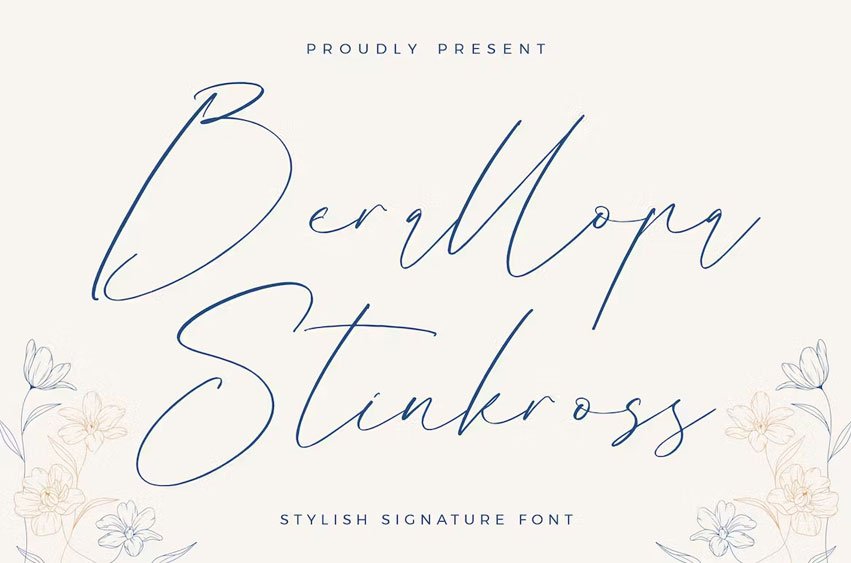
Berallopa Stinkross Font is suitable to complement your digital and printed creative products. This font is perfect for posters, social media posts, branding, personal projects, etc.